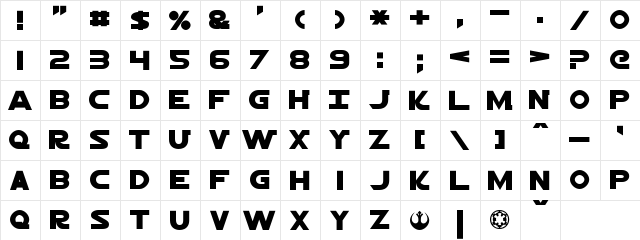
Jedi Solid Normal
Design Context for Jedi Solid Typeface
Jedi Solid is a composed and adaptable typeface that performs quietly and consistently across a wide range of design contexts.